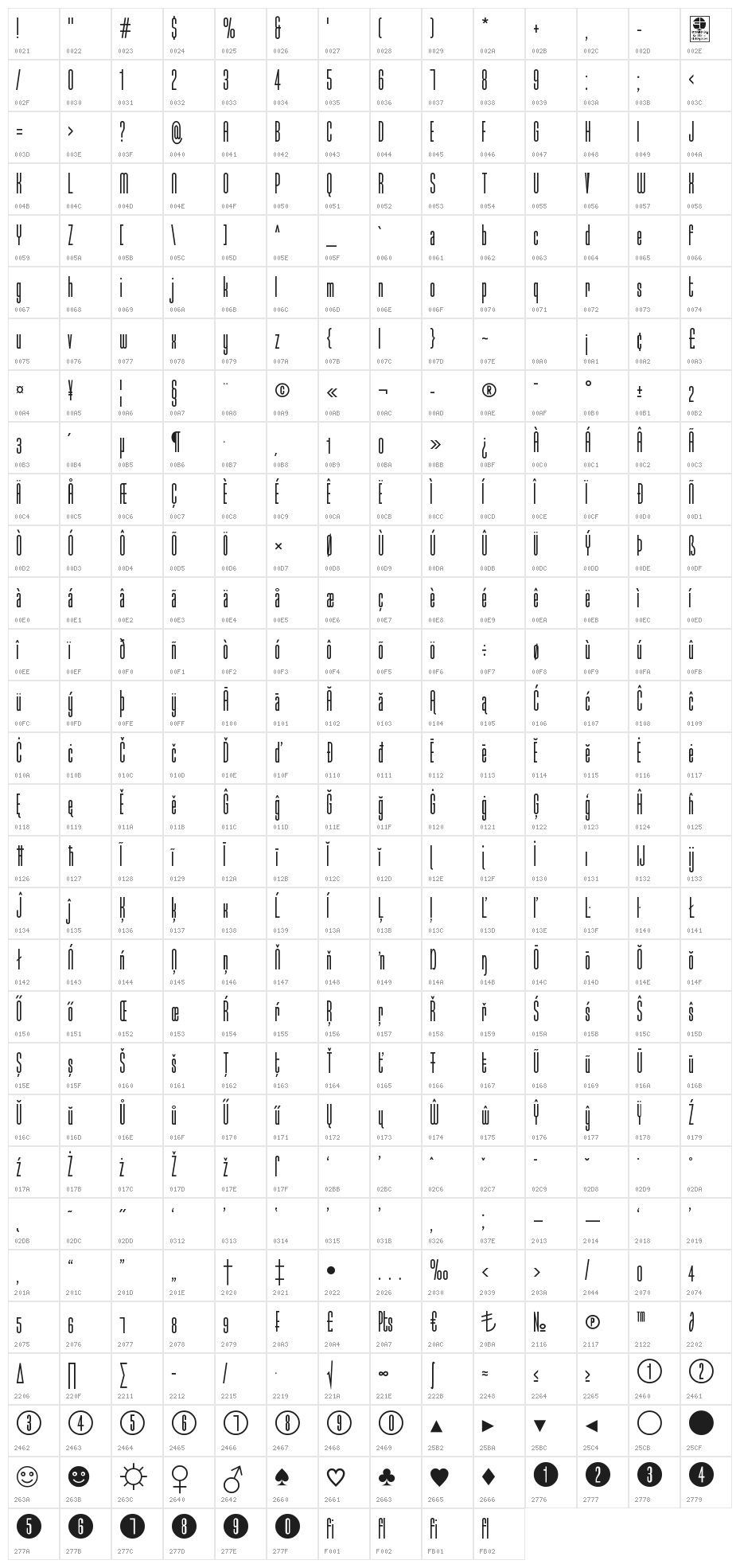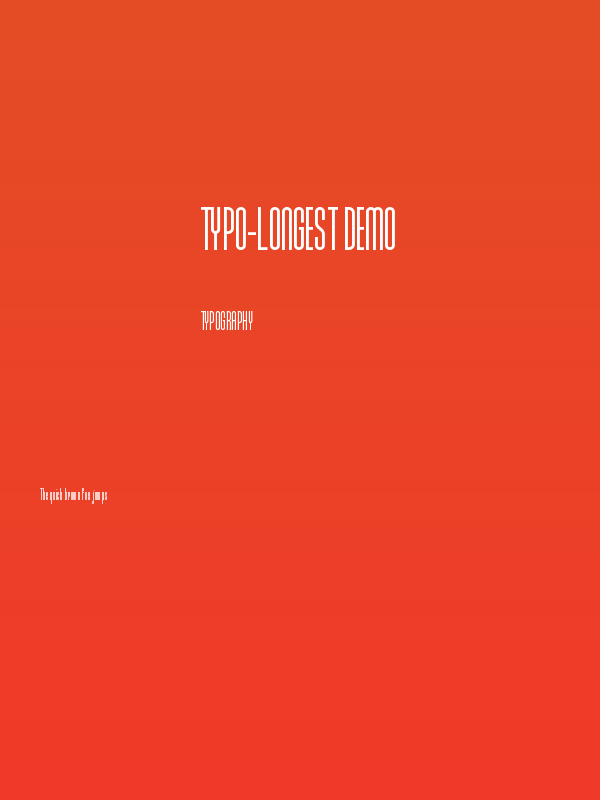
Typo-Longest Demo Font
Typo-Longest Demo Description
This font features a tall, narrow design with elongated letterforms that create a striking and modern appearance. The characters are uniformly structured, with consistent stroke widths that give it a clean and streamlined look. The uppercase letters are particularly elongated, adding a sense of elegance and sophistication. The lowercase letters maintain the same narrow proportions, ensuring a cohesive visual style across all text. The numerals and special characters follow the same design principles, making this font versatile for various applications. Its unique style is both contemporary and timeless, suitable for projects that require a distinctive and memorable typeface.
| Proposed Projects | Ideal for branding, posters, headlines, and any design work that requires a modern and sophisticated touch. |